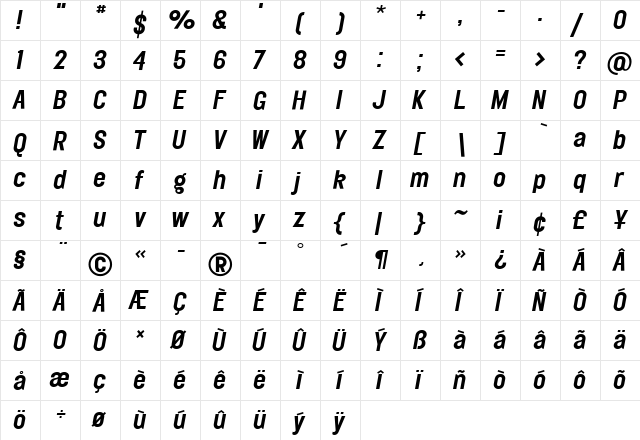
Elephant Medium Italic
Design Context for Elephant Typeface
Elephant is a composed and adaptable typeface that performs quietly and consistently across a wide range of design contexts. The dynamic lean of this cut emphasises speed and emphasis in any layout.
Pro Tip: Try Elephant for annotation and caption copy alongside an upright companion — the contrast in angle creates a dynamic but ordered typographic system.